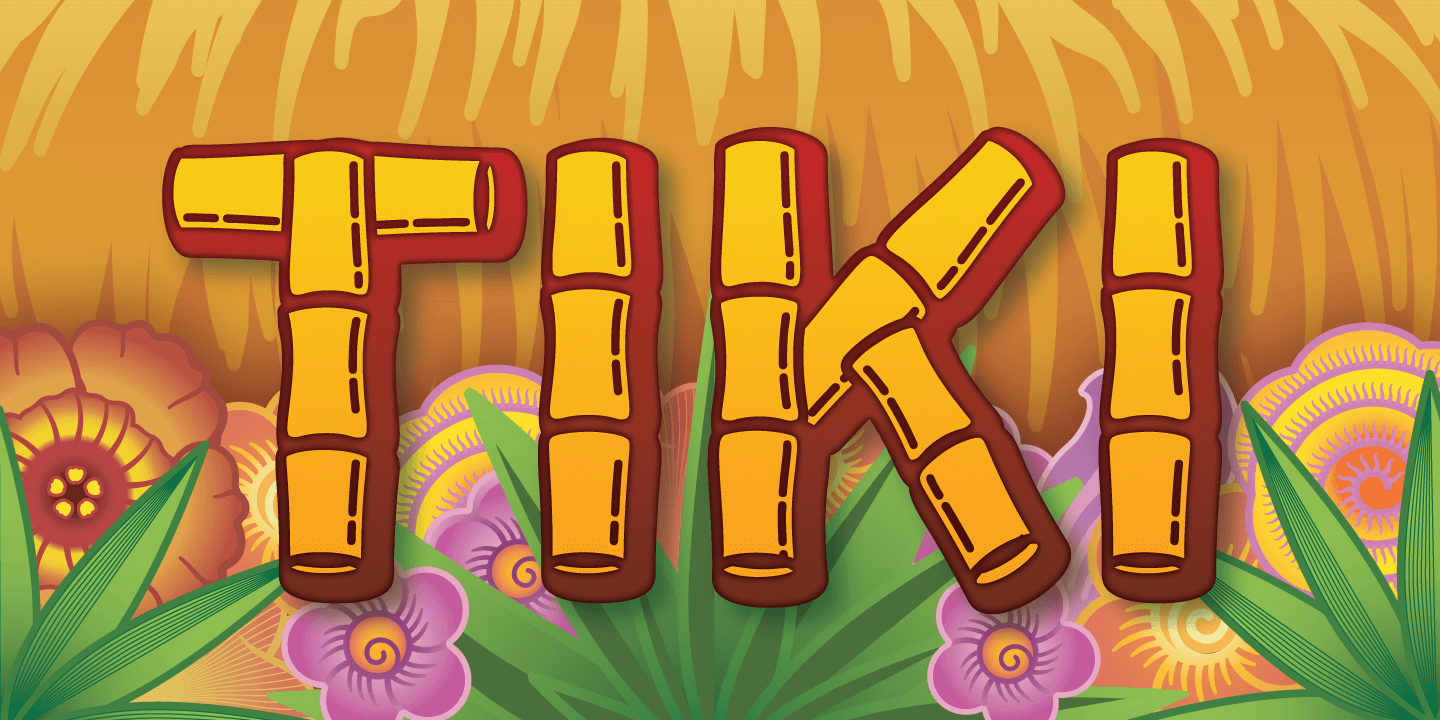
Tiki
It\’s here, it\’s new and it\’s bamboo. Not to be mistaken for the lush magic of the actual tropical rain forest, Tiki evokes more of a feeling of an Oriental Trading Co. tacky Hawaiian party or the ambiance of your weird friend\’s father\’s basement ?Tiki?…